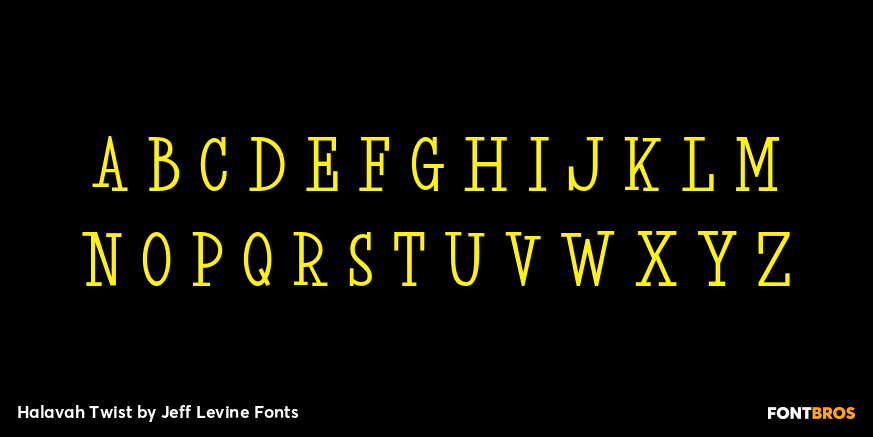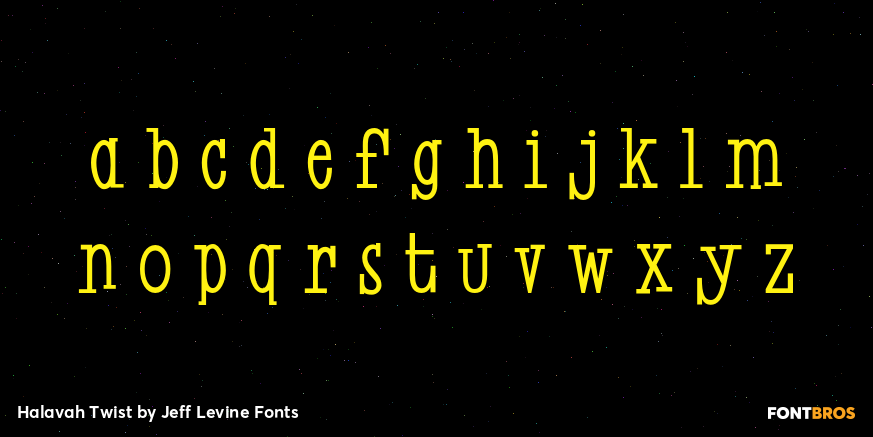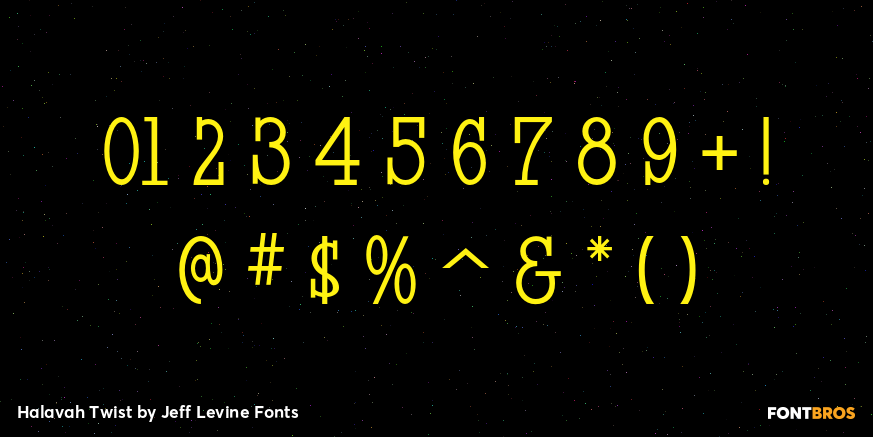
Halavah Twist
Halavah Twist JNL is a casual serif font designed by Jeffrey N. Levine and modeled after an early-1960s display font that was quite popular in its day.
This new interpretation takes on an entirely different look from the original, creating a modern-yet-retro design.
Light, playful and fun-loving, Halavah Twist JNL is perfect for any project that exudes a bubbly warmth and enthusiasm.
Halavah Twist JNL Regular by Jeff Levine Fonts